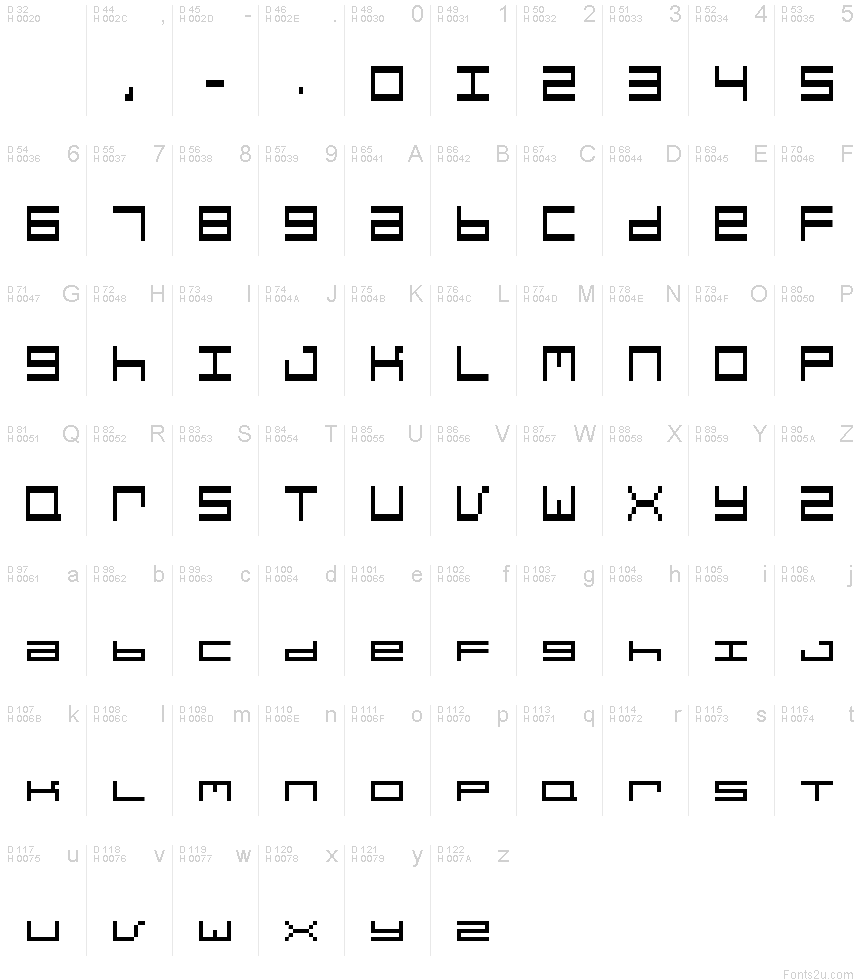
hardware requiem condensed
Hardware Requiem Condensed by Andreas Johansson is a free futuristic display font built from stark, rectilinear strokes. Its letters stretch across the line in broad horizontal bars, interrupted by tight square gaps and abrupt right-angle turns. The low, engineered silhouettes resemble symbols cut for a control panel.
As an electronic title treatment, it gives game menus and science-fiction posters the look of coded machinery, and its severe geometry also suits technology branding. On album artwork and event graphics, the lettering can become part of an interface-like diagram rather than serving as neutral text.